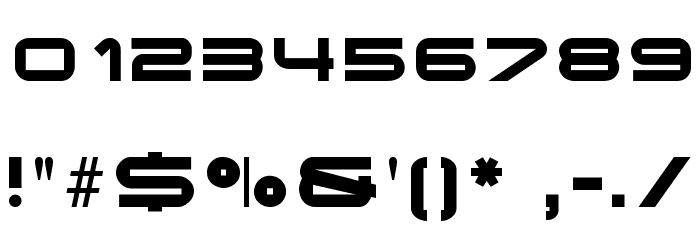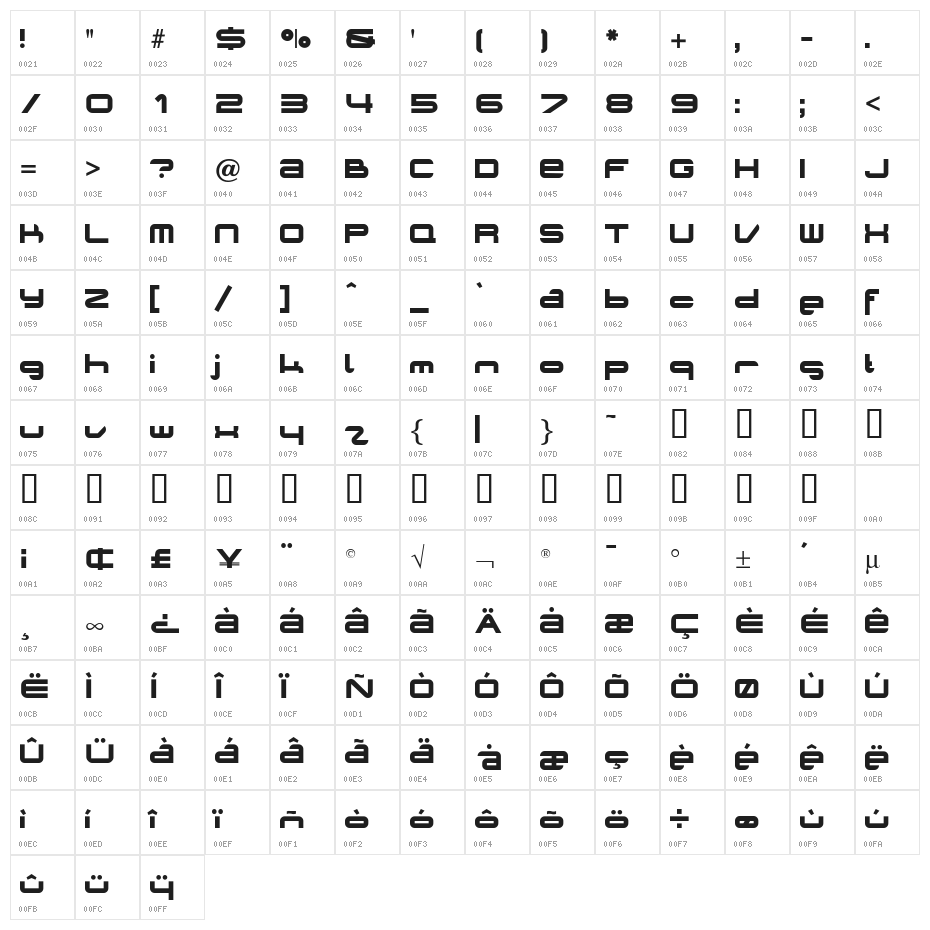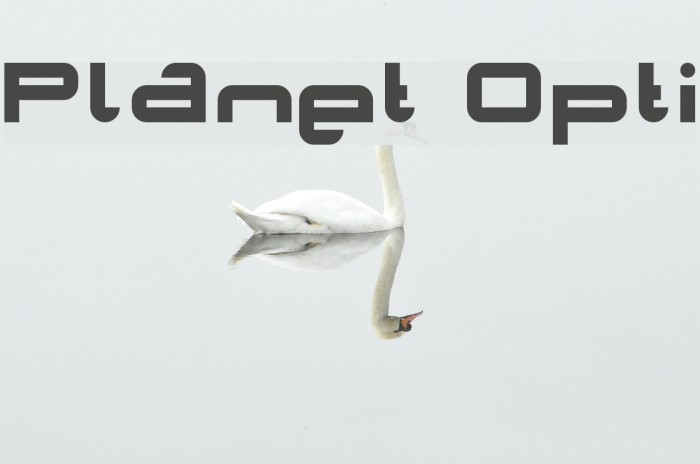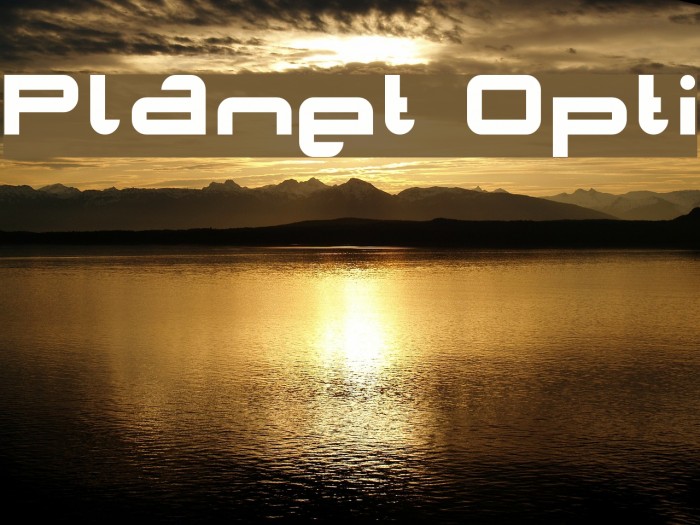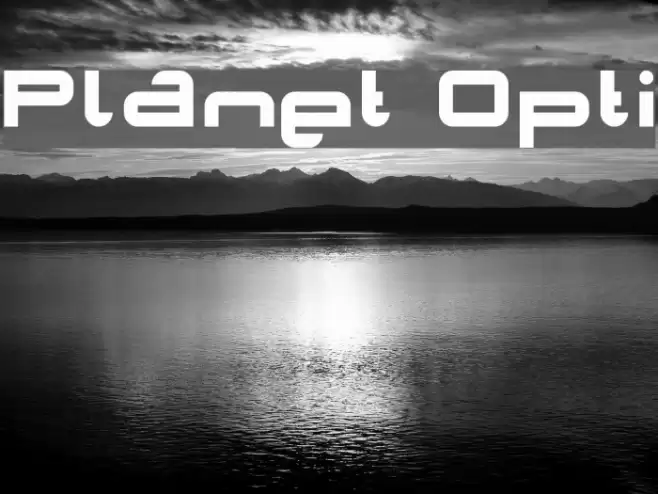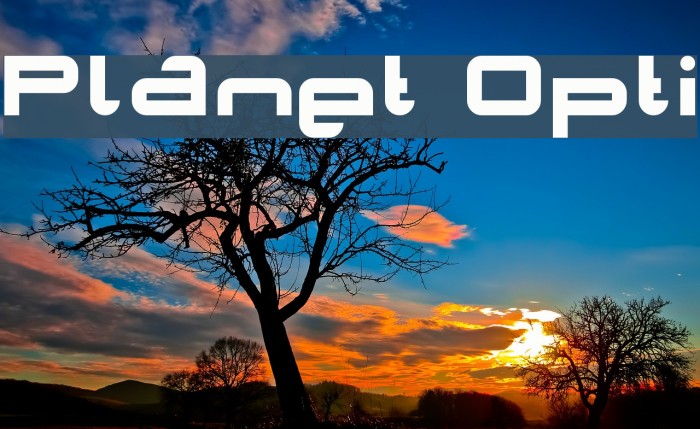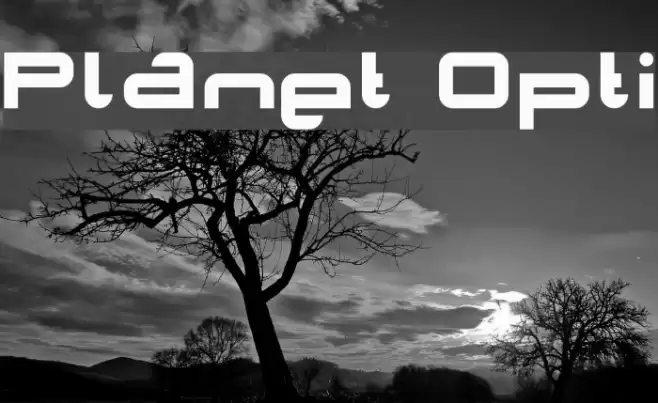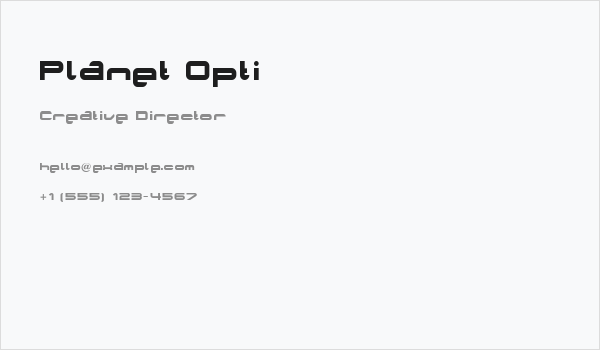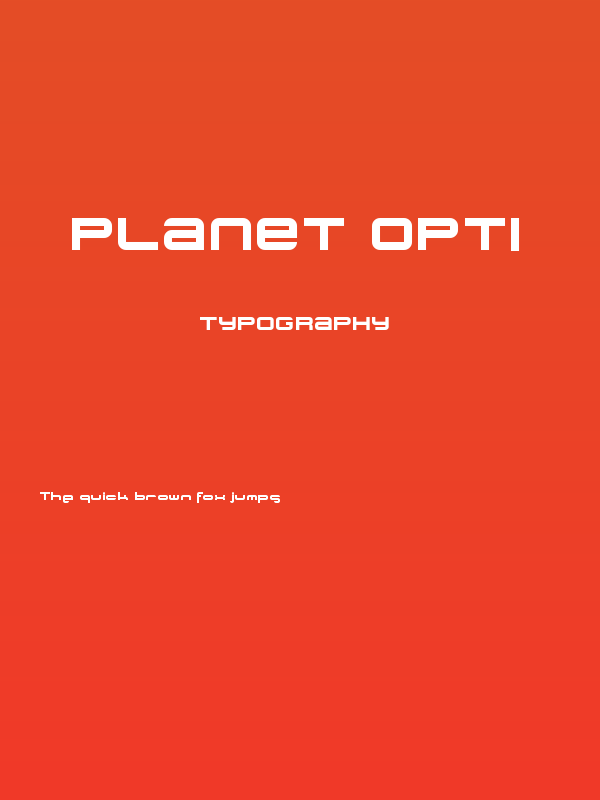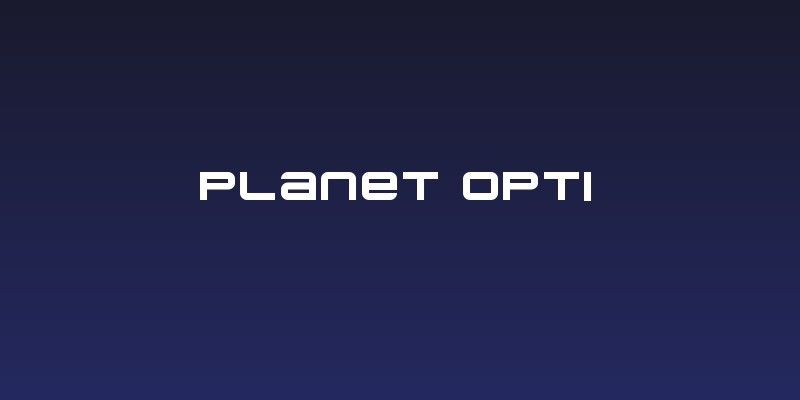
Planet Opti Font
Planet Opti Description
This font features a futuristic and geometric design, characterized by its bold and blocky letterforms. The characters are constructed with a consistent stroke width, giving it a uniform appearance. The uppercase and lowercase letters maintain a similar height, enhancing its modern aesthetic. The numbers and special characters are designed to match the overall style, with rounded edges and a slightly condensed form. This font is ideal for projects that require a sleek, contemporary look, such as technology branding or sci-fi themed designs.
| Proposed Projects | Ideal for technology branding, sci-fi themed designs, video game interfaces, and modern advertising. |